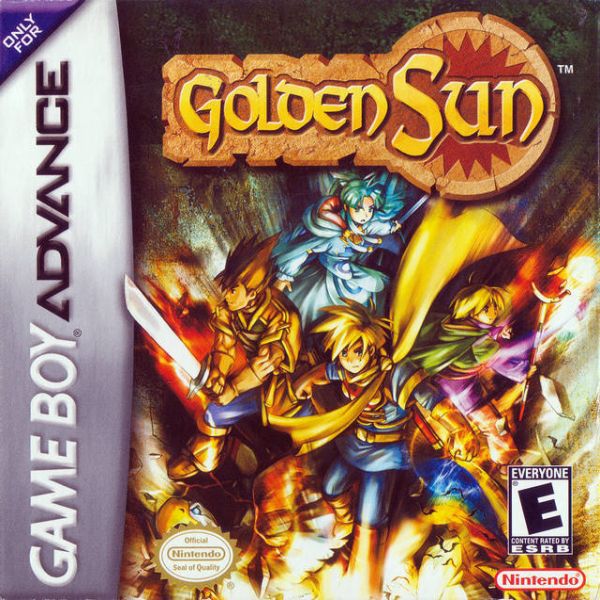
Golden Sun Font
Fonts in UseGolden Sun is a role-playing video game series developed by Camelot Software Planning. It was released on Game Boy Advance and later on Nintendo DS. The storyline revolves around a group of adepts with magical powers who embark on a quest to prevent the unleashing of ancient destructive forces.
The font utilized on the box art for the game's title is most likely Taranis, an uncial font created by David Nalle back in 1993. For additional information regarding the font please check here.